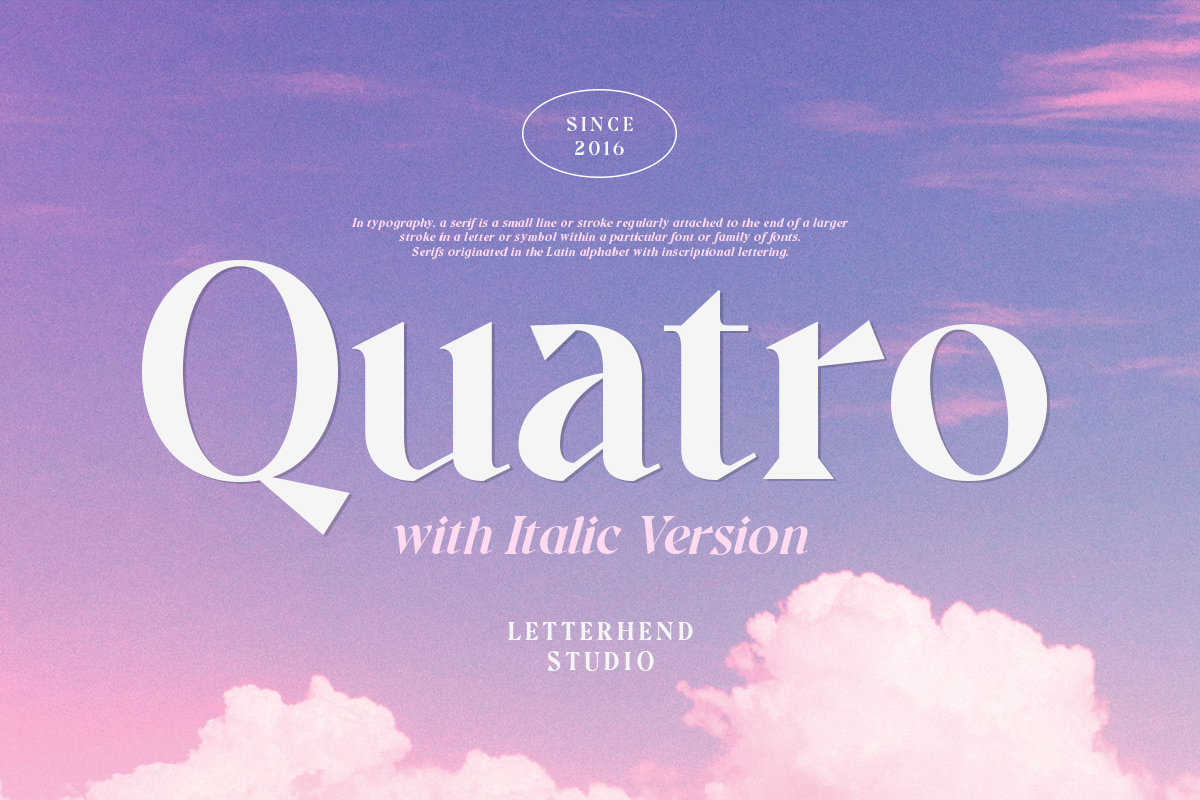
Quatro Font
Quatro Font excels in modern tech company branding, architectural firm materials, contemporary art gallery signage, minimalist product packaging, sleek corporate presentations, cutting-edge startup logos, industrial design portfolios, modern furniture catalogs, high-tech website interfaces, and progressive marketing campaigns. This versatile typeface works beautifully for construction company branding, engineering firm documentation, modern real estate marketing, contemporary fashion brands, innovative software interfaces, urban planning materials, and forward-thinking business communications.
What makes Quatro Font so exciting is its perfect balance between geometric precision and contemporary sophistication. The font features clean, structured letterforms with subtle angular details that create a sense of stability and innovation simultaneously. Each character demonstrates meticulous attention to proportional harmony, making it exceptionally readable while maintaining a distinctive modern personality. The geometric foundation provides excellent scalability across various applications, from large-scale architectural signage to detailed digital interfaces, ensuring consistent visual impact and professional appeal in any context.
The Quatro Font family offers a comprehensive range of weights and styles designed for maximum versatility. The collection includes thin, light, regular, medium, bold, and black weights, each maintaining the font's core geometric principles while providing extensive design flexibility. Additional features include condensed and extended versions, italic variants, and a complete set of numerical figures and symbols. Special character sets support multilingual applications, while carefully crafted spacing and kerning ensure optimal readability across all weights and sizes.
For designers seeking contemporary typography that communicates precision and innovation, Quatro Font Free Download delivers exceptional performance and visual appeal. This remarkable typeface transforms standard text into powerful design statements that resonate with modern audiences seeking cutting-edge aesthetics. The font's geometric foundation and contemporary character make it ideal for brands that want to project professionalism, reliability, and forward-thinking vision, ensuring your designs maintain relevance in today's competitive marketplace while establishing strong visual hierarchy and brand recognition.